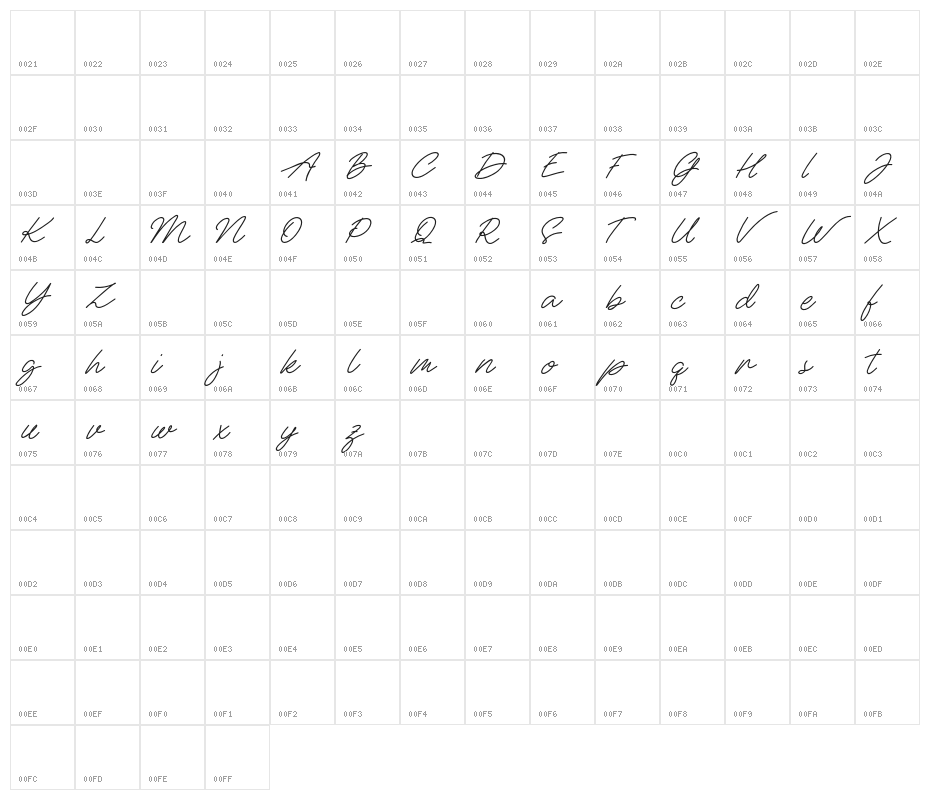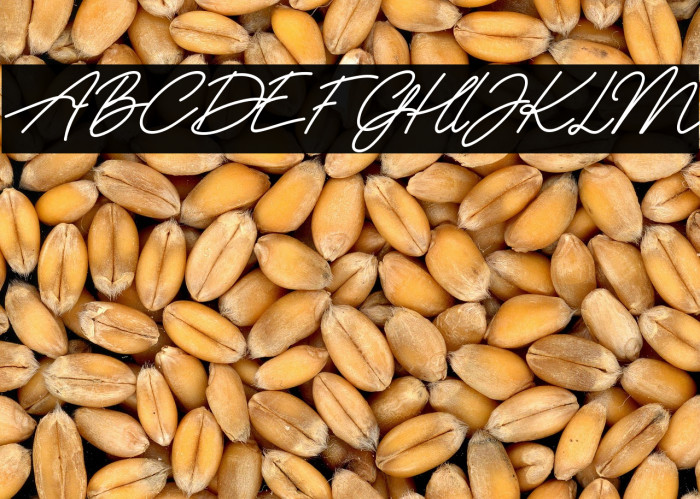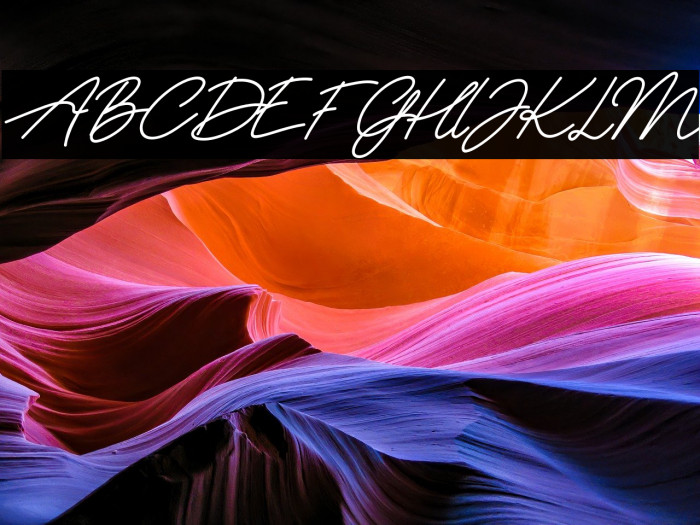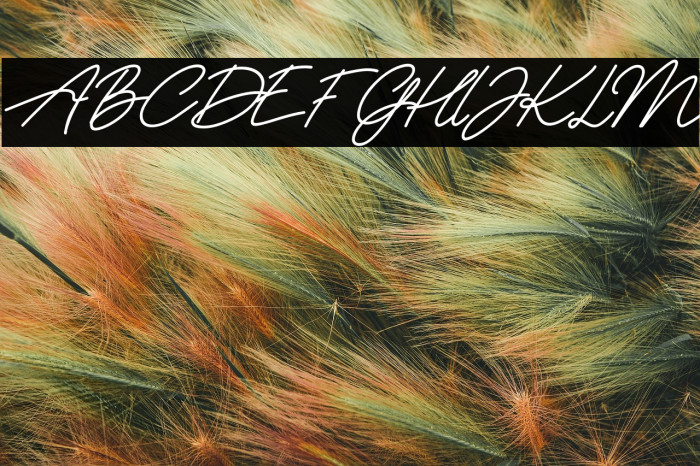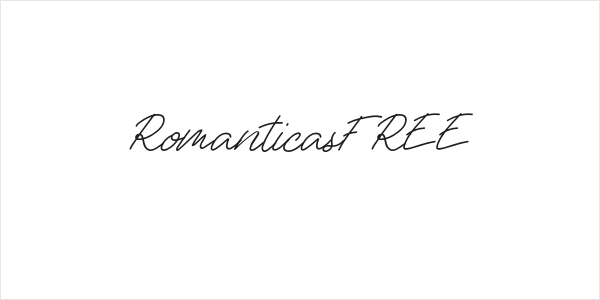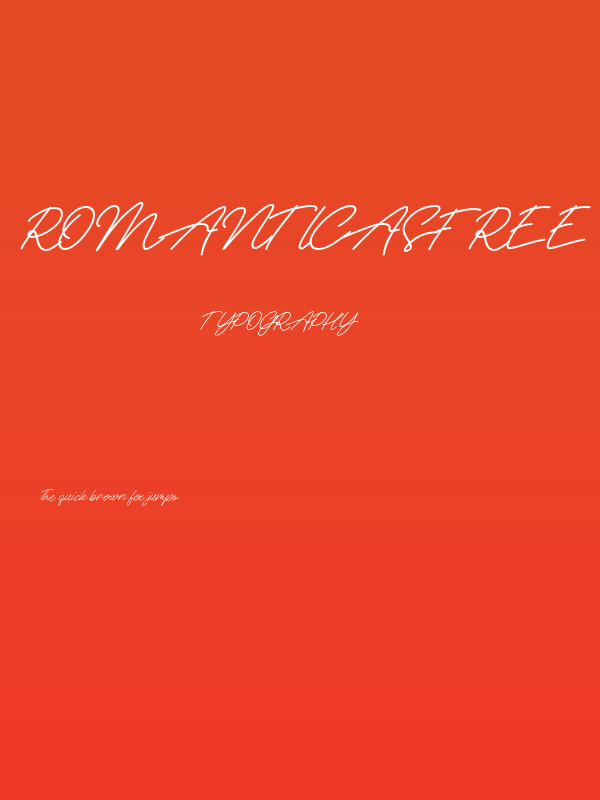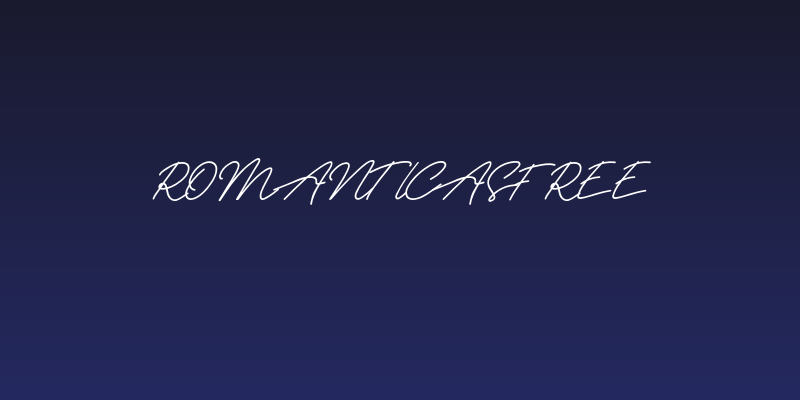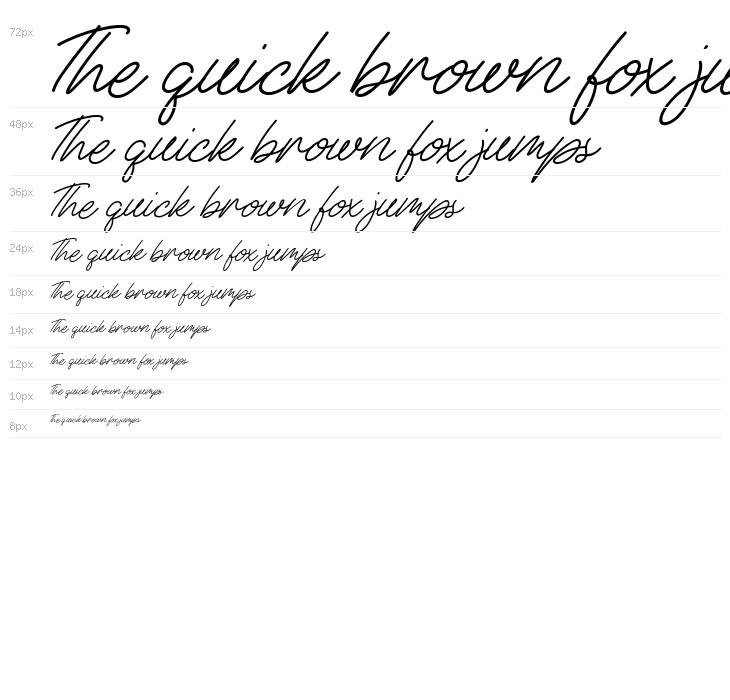
RomanticasFREE Font
RomanticasFREE Description
This font embodies a flowing, elegant script style that mimics the fluidity of cursive handwriting. Each letter is connected, creating a seamless and continuous line that enhances its graceful appearance. The strokes are smooth and slightly varied in thickness, adding a touch of sophistication and dynamism. The uppercase letters are slightly larger and more pronounced, while the lowercase letters maintain a consistent flow, making it ideal for creating a harmonious and aesthetically pleasing text. This font exudes a romantic and personal touch, perfect for projects that require a handwritten feel.
| Overall Style | Romantic, Elegant |
| Proposed Projects | Ideal for wedding invitations, greeting cards, personal branding, and romantic-themed projects. |